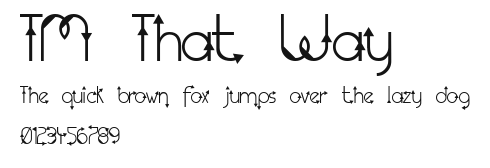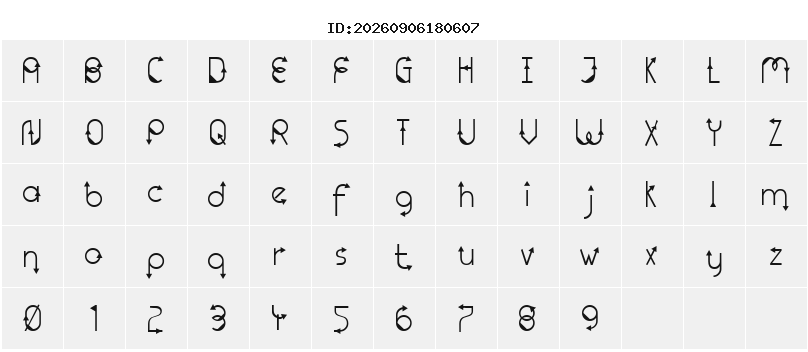
• Font Name: TM That Way
• Font ID: TwoMoon - That Way Normal
• Full Font Name: TM That Way Normal
• Version: 0.9 1996
• PostScript Name: TMThatWayNormal
• Character Count: 76
• Copyright: (c) 1996 TwoMoon Media
About TM That Way.ttf
TM That Way.ttf is a modern, elegant sans-serif font designed for ultimate readability and visual harmony. Perfect for branding, headlines, web design, and print materials.